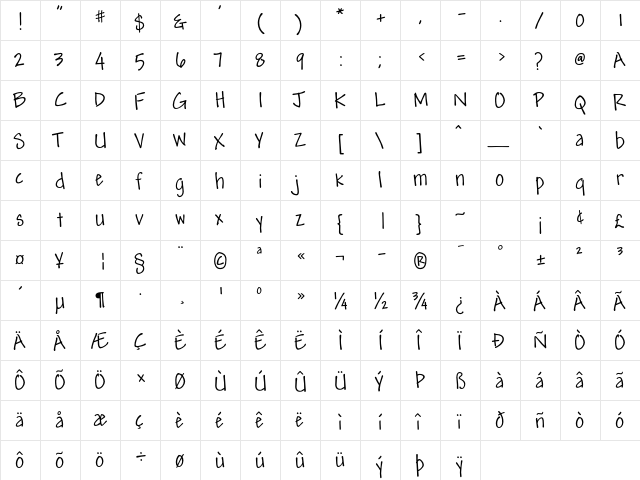
Andy Std Regular Font Preview
Andy Std Regular
Andy Std Regular Font Details
Design Context for Andy Std Typeface
Andy Std is a composed and adaptable typeface that performs quietly and consistently across a wide range of design contexts.
Pro Tip: Pair Andy Std with a font of contrasting weight or personality to build a more expressive typographic hierarchy.